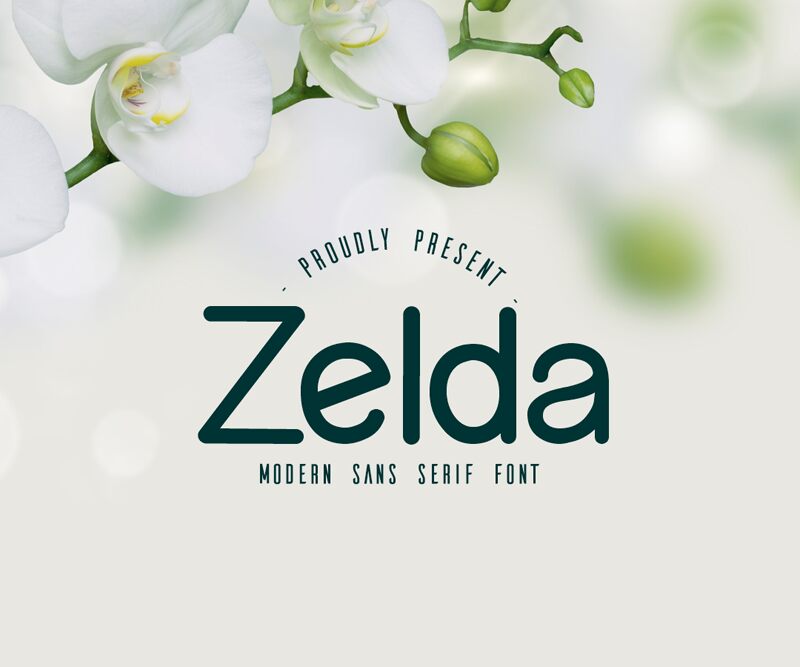
Designed by Almaz Studio, Zelda is a gorgeously unique sans serif font that combines perfect readability with a clean and modernist lettering design. The font is also available in a regular, italic, bold italic and bold version.